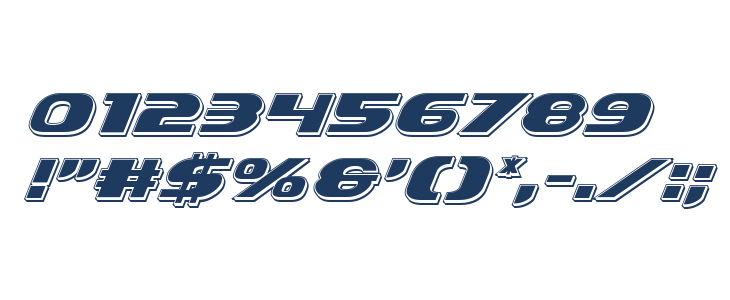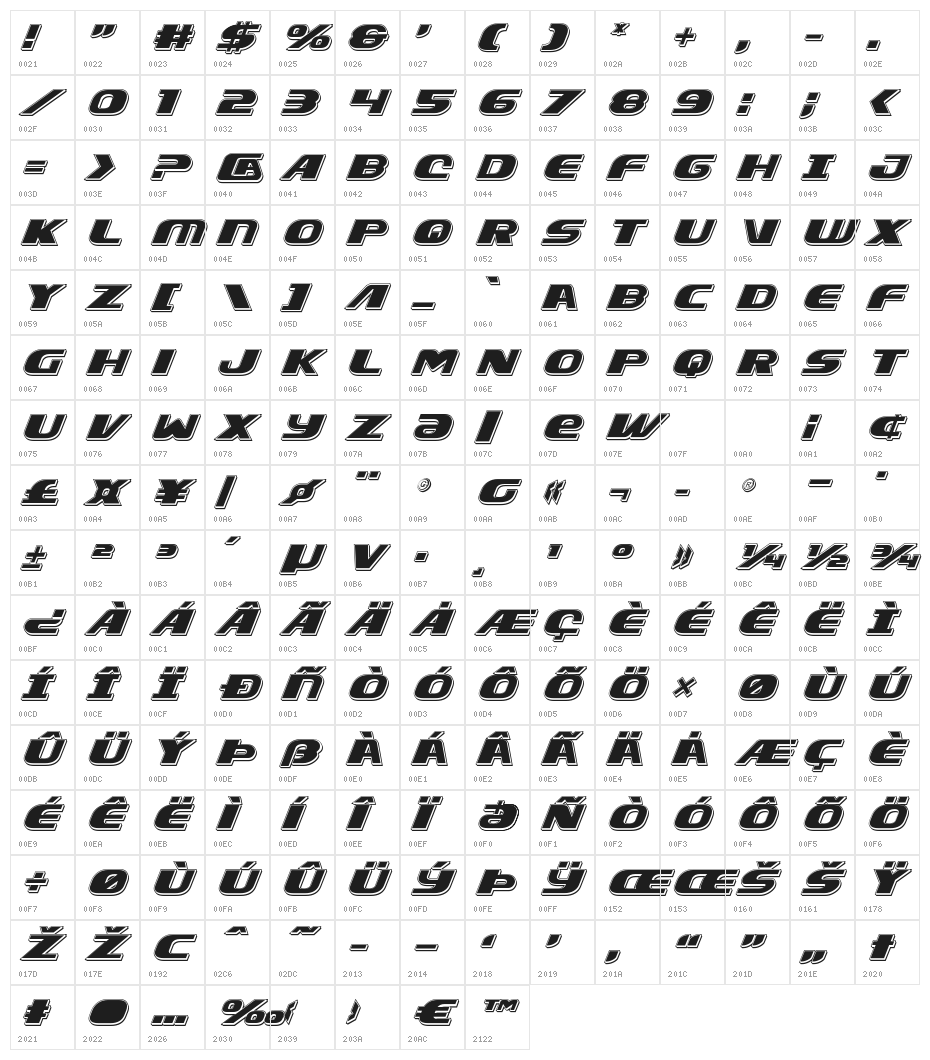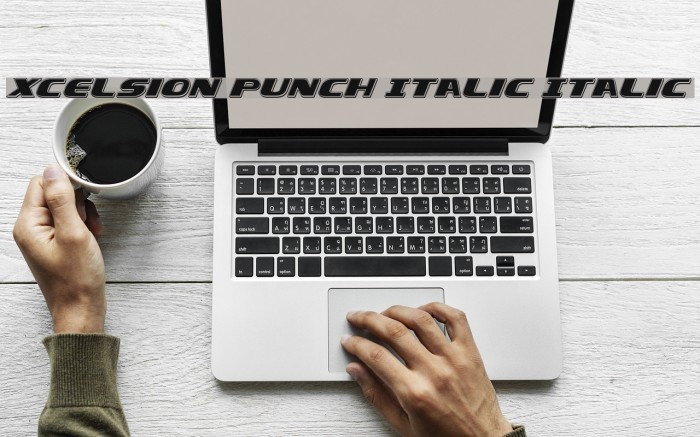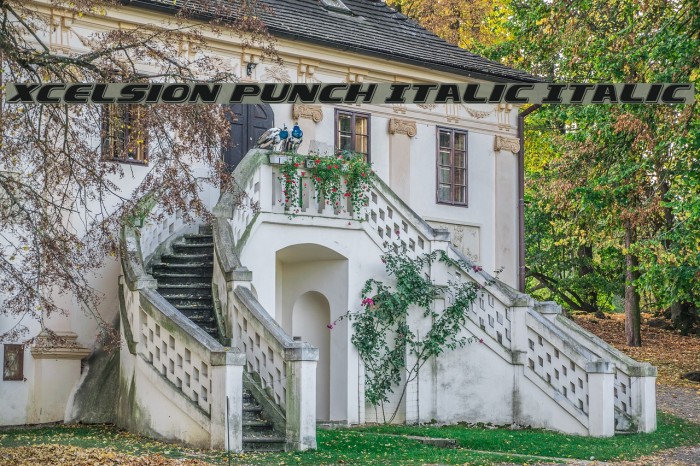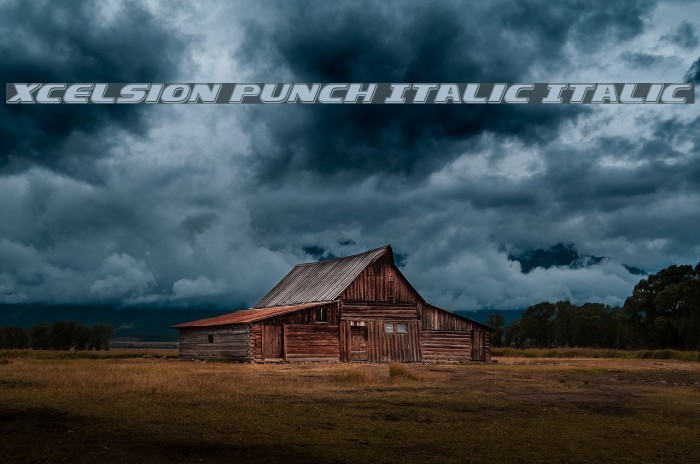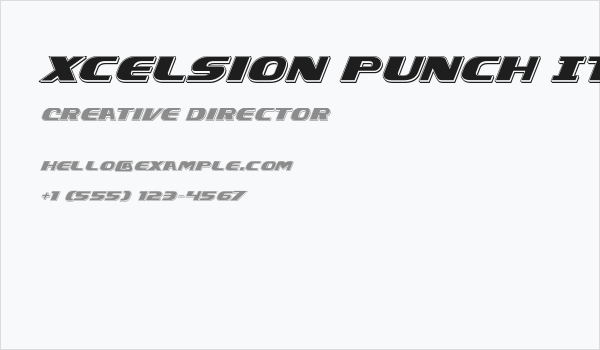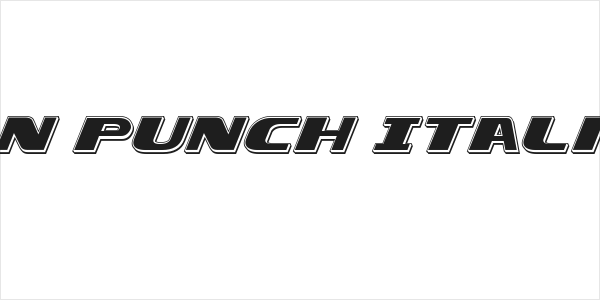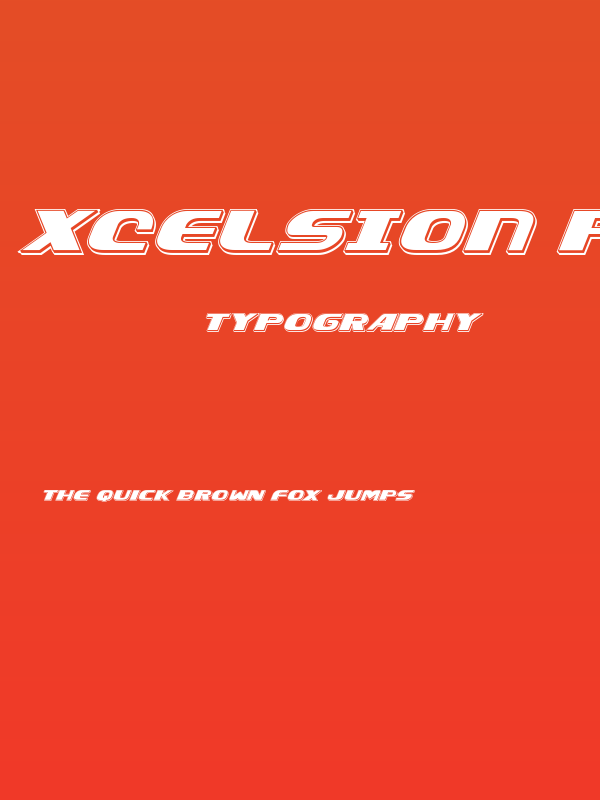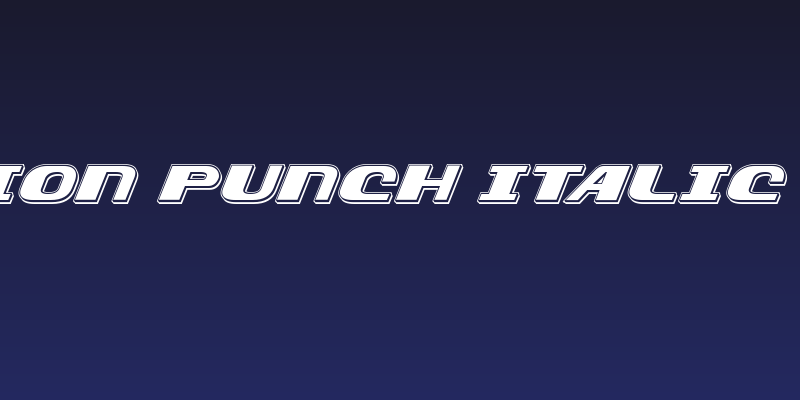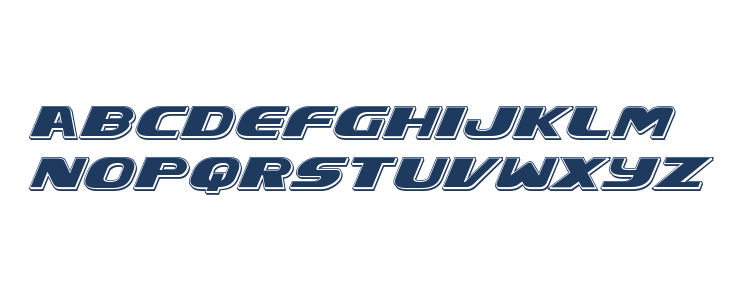
Xcelsion Punch Italic Italic Font
Xcelsion Punch Italic Italic Description
This font features a bold, italicized style with a distinct futuristic and dynamic appearance. The characters are outlined with a thick border, giving them a three-dimensional effect. The letters are slightly slanted, enhancing the italicized look, and the overall design is sleek and modern. The uppercase and lowercase letters maintain a consistent style, with sharp edges and a sense of movement. The numbers and special characters follow the same design principles, ensuring uniformity across all glyphs. This font is ideal for projects that require a bold and impactful visual statement.